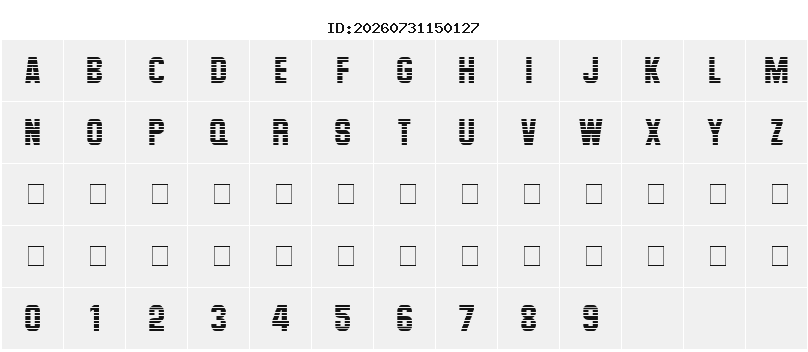
About Levelor Display Caps SSi.ttf
Levelor Display Caps SSi.ttf is a modern, elegant sans-serif font designed for ultimate readability and visual harmony. Perfect for branding, headlines, web design, and print materials.